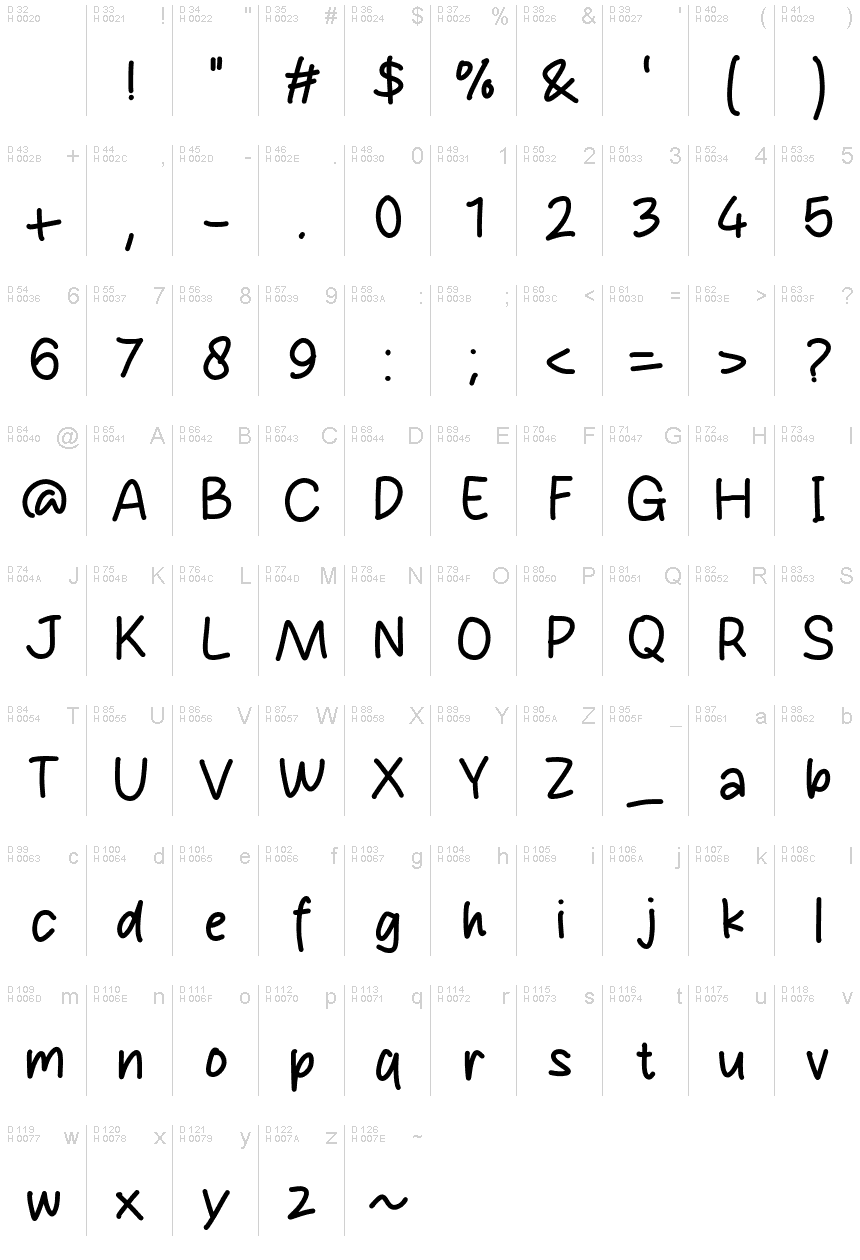
Blessing
Blessing, the captivating semi-light font by MJType, adds a touch of authenticity to any project. Its casual handwritten style beautifully captures the essence of personal messages and heartfelt invitations. Perfect for wedding stationery, greeting cards, and heartfelt quotes, this font infuses warmth into every word.
Whether you're designing a cozy café menu or crafting a blog with a personal touch, Blessing's delicate strokes create a unique charm that resonates with readers. Embrace the versatility of Blessing as it effortlessly elevates your designs and brings an intimate flair to your creative endeavors.